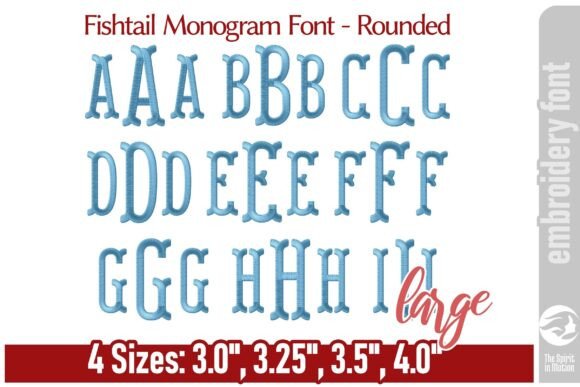
Fishtail Monogram Font - Rounded / L
Fishtail Monogram Font – Rounded / L
Add a timeless touch to your embroidery projects with this elegant fishtail monogram font. Featuring graceful, rounded terminals and a refined, classic structure, this font is perfect for creating personalized gifts, heirloom linens, or boutique-style embellishments. Includes two letter sizes, ideal for traditional three-letter monograms or standout single initials.